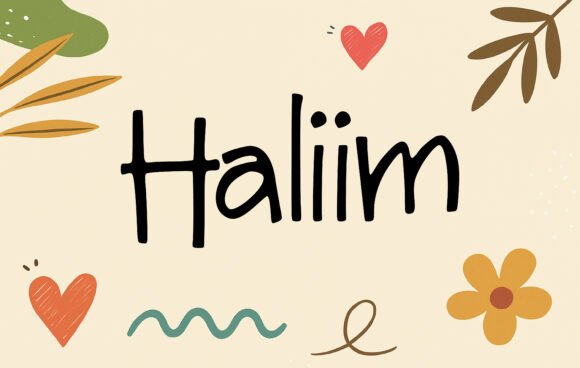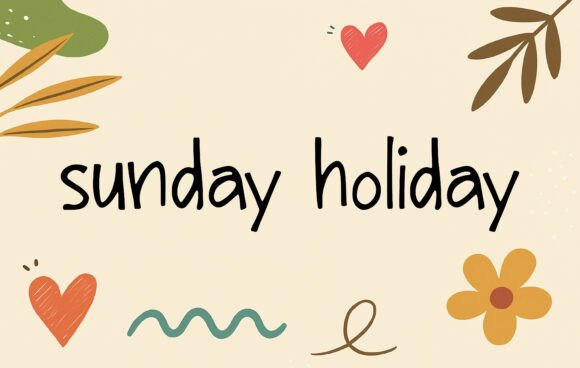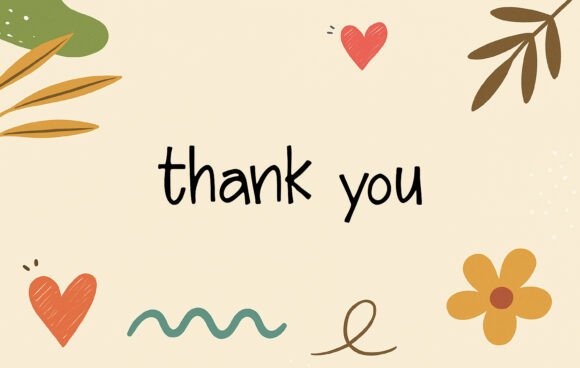
Haliim Font: Elegant Script Typography for Wedding Invitations
About the Haliim Font
Step up your design game with Haliim Font, a font that exudes confidence and style. This font is designed to be a true favorite and it has the potential to take your creative ideas to the highest level
Haliim’s strong, yet legible forms make it ideal for headlines, branding applications, and short impactful text on posters or packaging. Its confident presence, however, doesn’t translate well to body text or long paragraphs; smaller sizes lose some of their clarity. Avoid using it in user interfaces where readability at smaller scales is crucial.
The font possesses a bold and slightly modern personality. It suits brands aiming for a sophisticated yet approachable image – think high-end fashion, premium products, or contemporary art. Pairing it with a clean sans-serif like Lato for body copy, or a delicate script like Great Vibes for secondary text elements, will create visually appealing and balanced designs.
Consider pairing Haliim with a geometric sans-serif for a more modern and minimalist feel, or a warmer serif for a touch of classic elegance. The key is to use a contrasting yet complementary typeface to provide visual interest without overwhelming Haliim’s inherent strength.